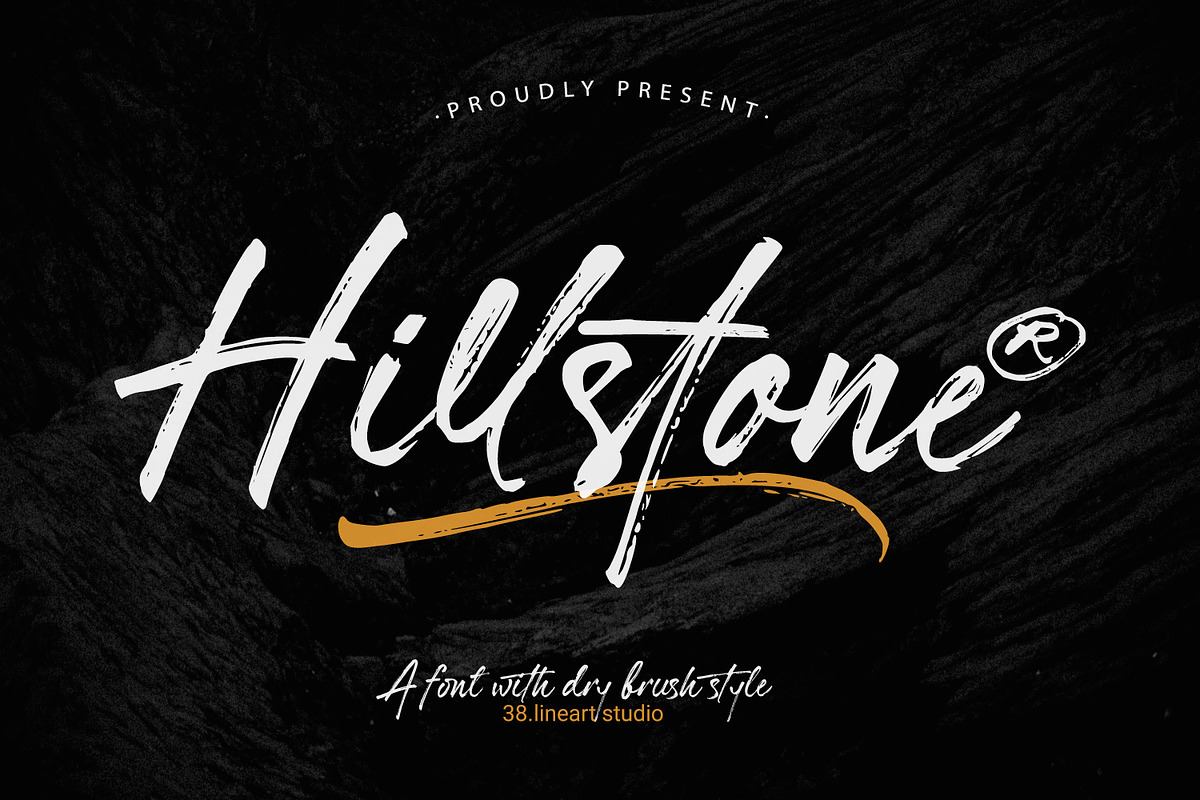
Hillstone is a handcrafted dry brush font that brings a raw and authentic feel to your designs. Created with strong, swift strokes on paper, it captures the essence of traditional brush lettering, making it ideal for projects that require a personal and dynamic touch.
• Handwritten Texture: Hillstone's rough texture emulates the natural imperfections of brush strokes, adding character and depth to your typography.
• Versatile Applications: Perfect for branding, logos, apparel design, posters, and more, Hillstone adds an energetic flair to any project.
• Additional Swashes: The font package includes 'Hillstone Swash,' providing extra strokes and flourishes to enhance your designs.